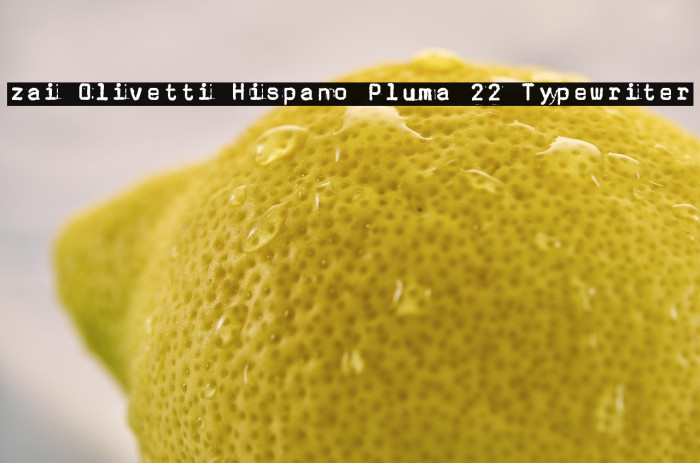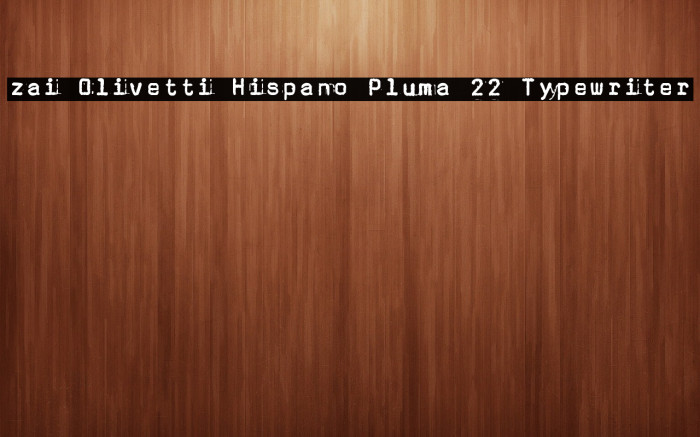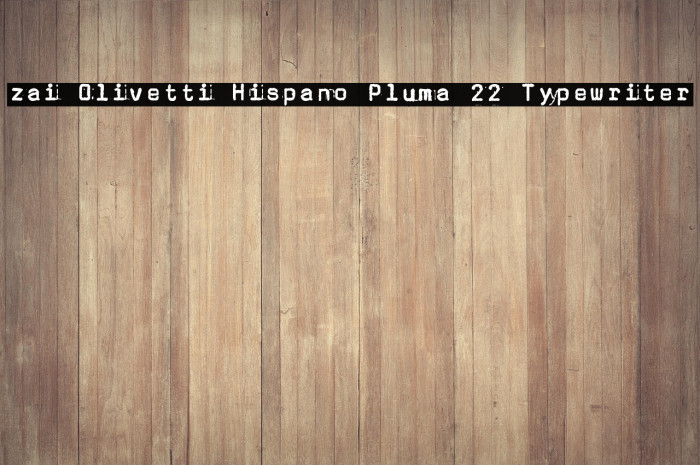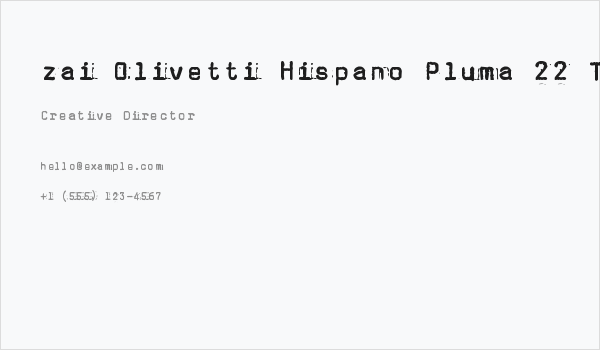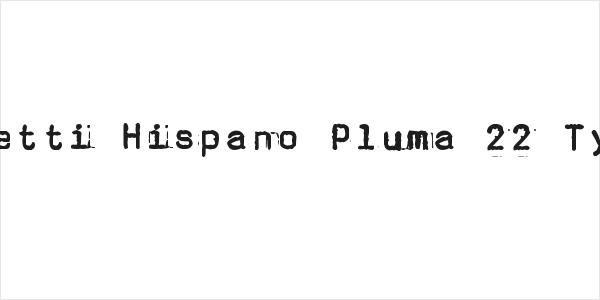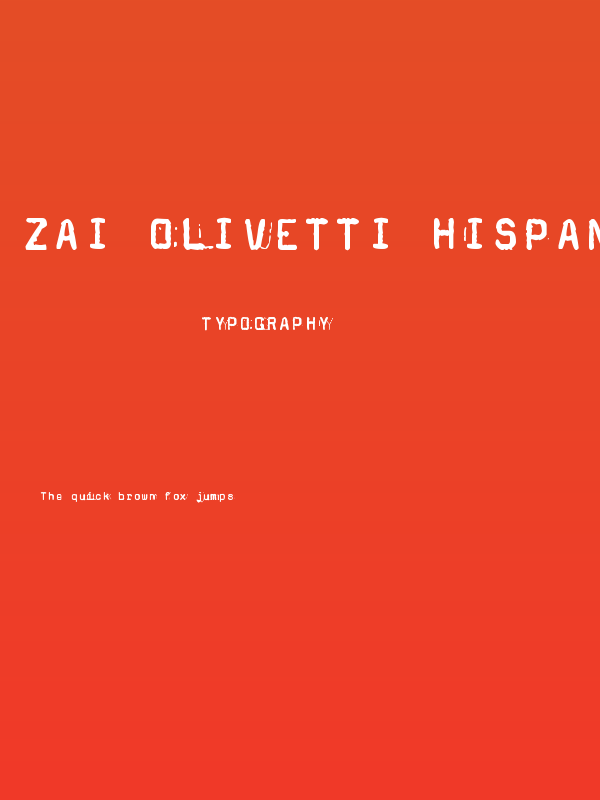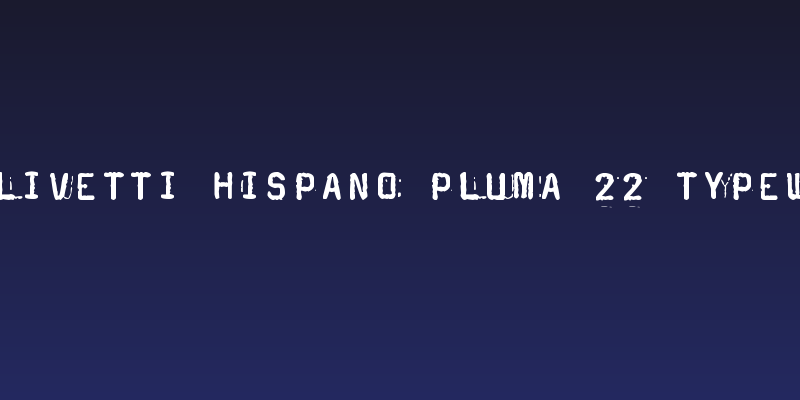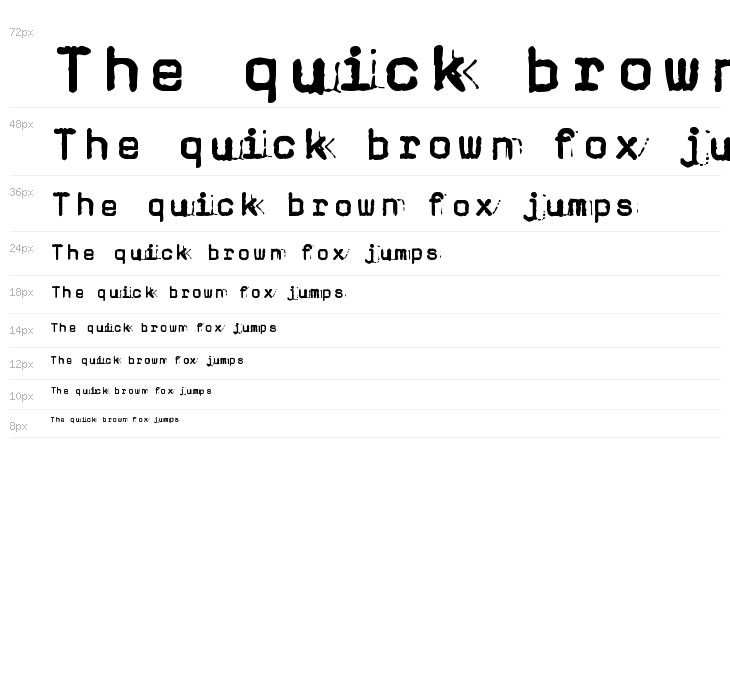
zai Olivetti Hispano Pluma 22 Typewriter Font
zai Olivetti Hispano Pluma 22 Typewriter Description
This typewriter-style font features a distressed, vintage appearance reminiscent of old mechanical typewriters. The characters are monospaced, with each letter and number occupying the same horizontal space, contributing to a uniform and structured look. The edges of the characters are rough and irregular, giving them a worn, textured feel that adds to the nostalgic aesthetic. The uppercase and lowercase letters maintain a consistent height, while the numerals are slightly taller, enhancing readability. Special characters and punctuation follow the same design principles, ensuring a cohesive overall style. This font's unique character is perfect for projects that aim to evoke a sense of history or authenticity.
| Proposed Projects | Ideal for retro-themed designs, vintage posters, historical documents, or any project seeking an authentic typewriter look. |